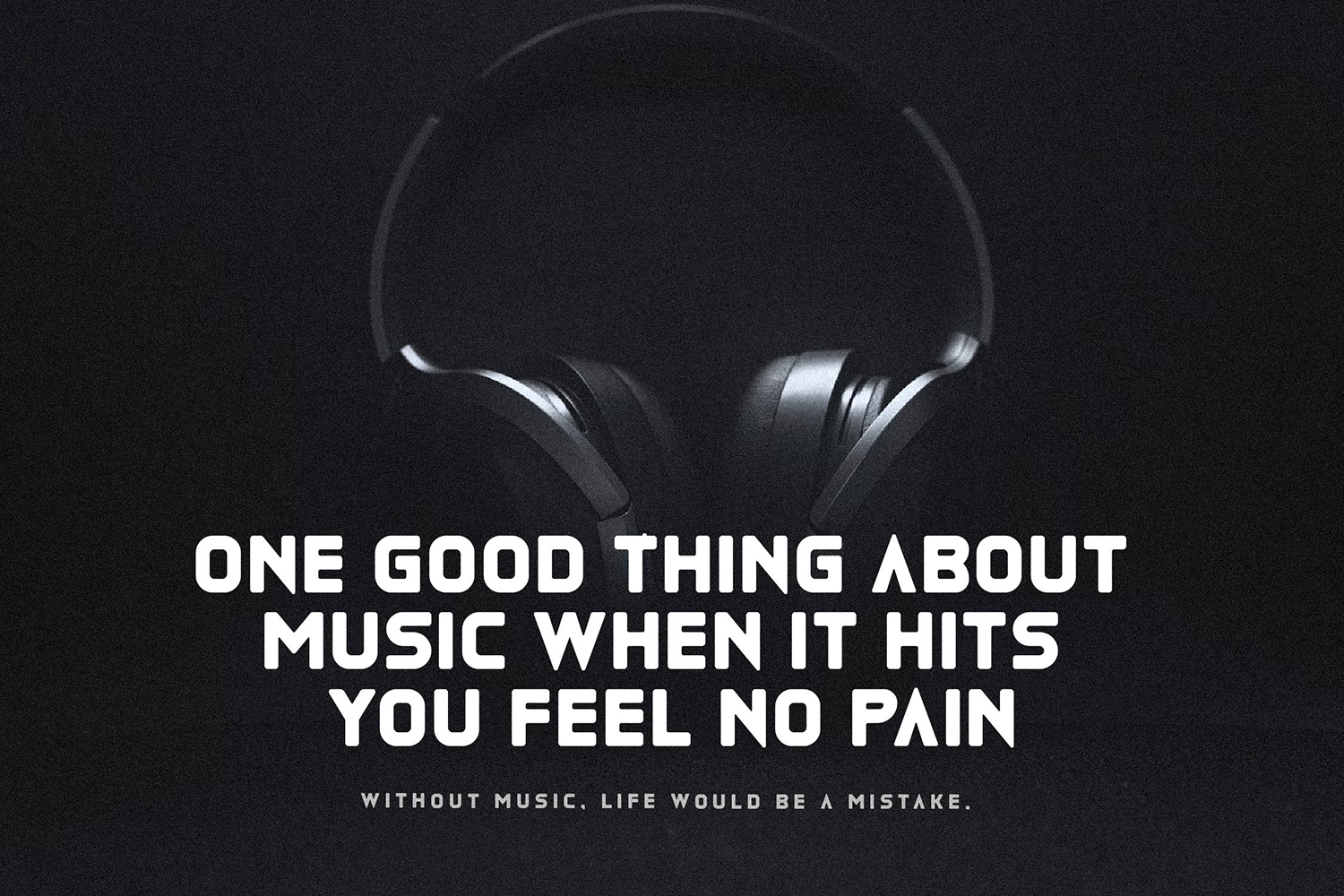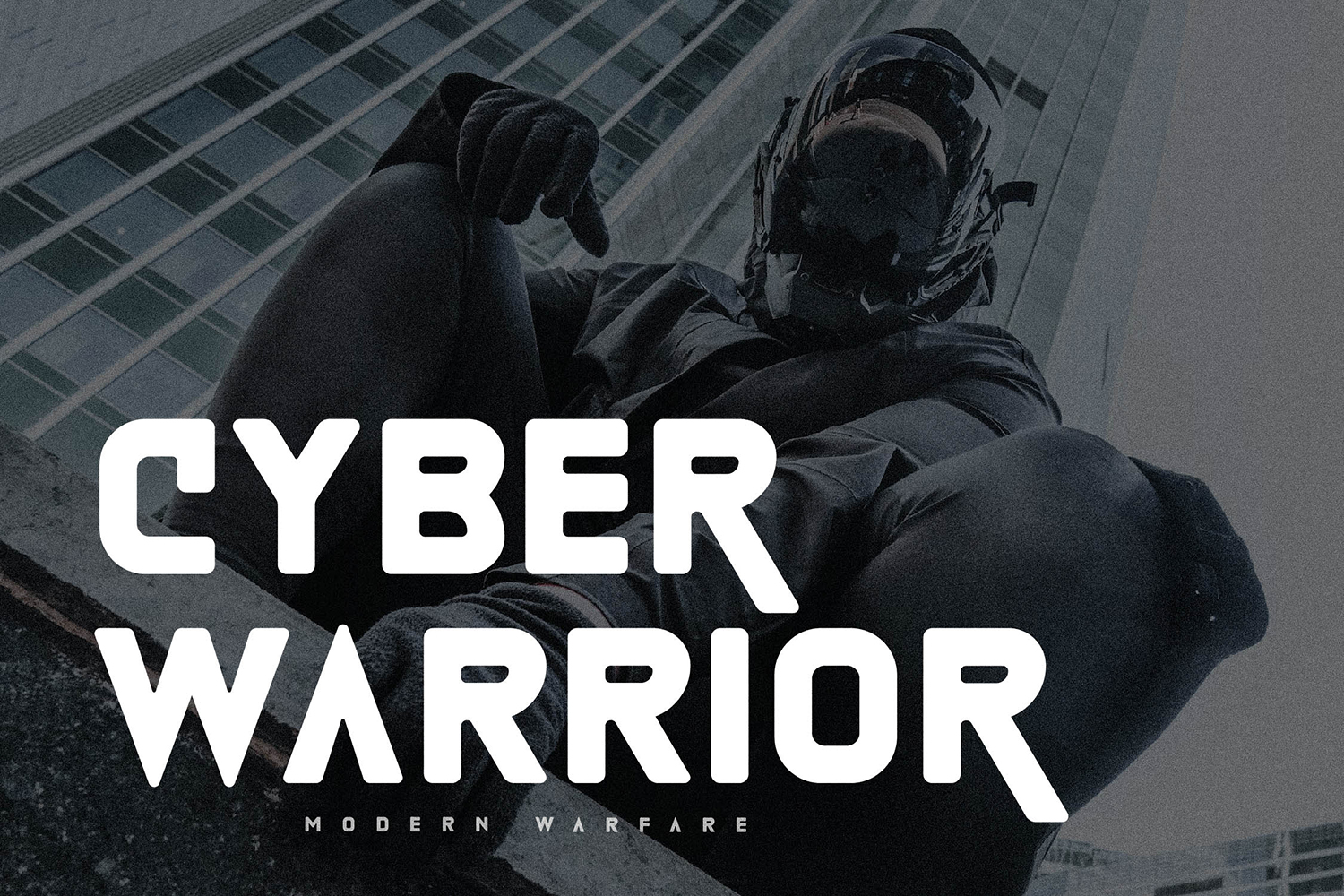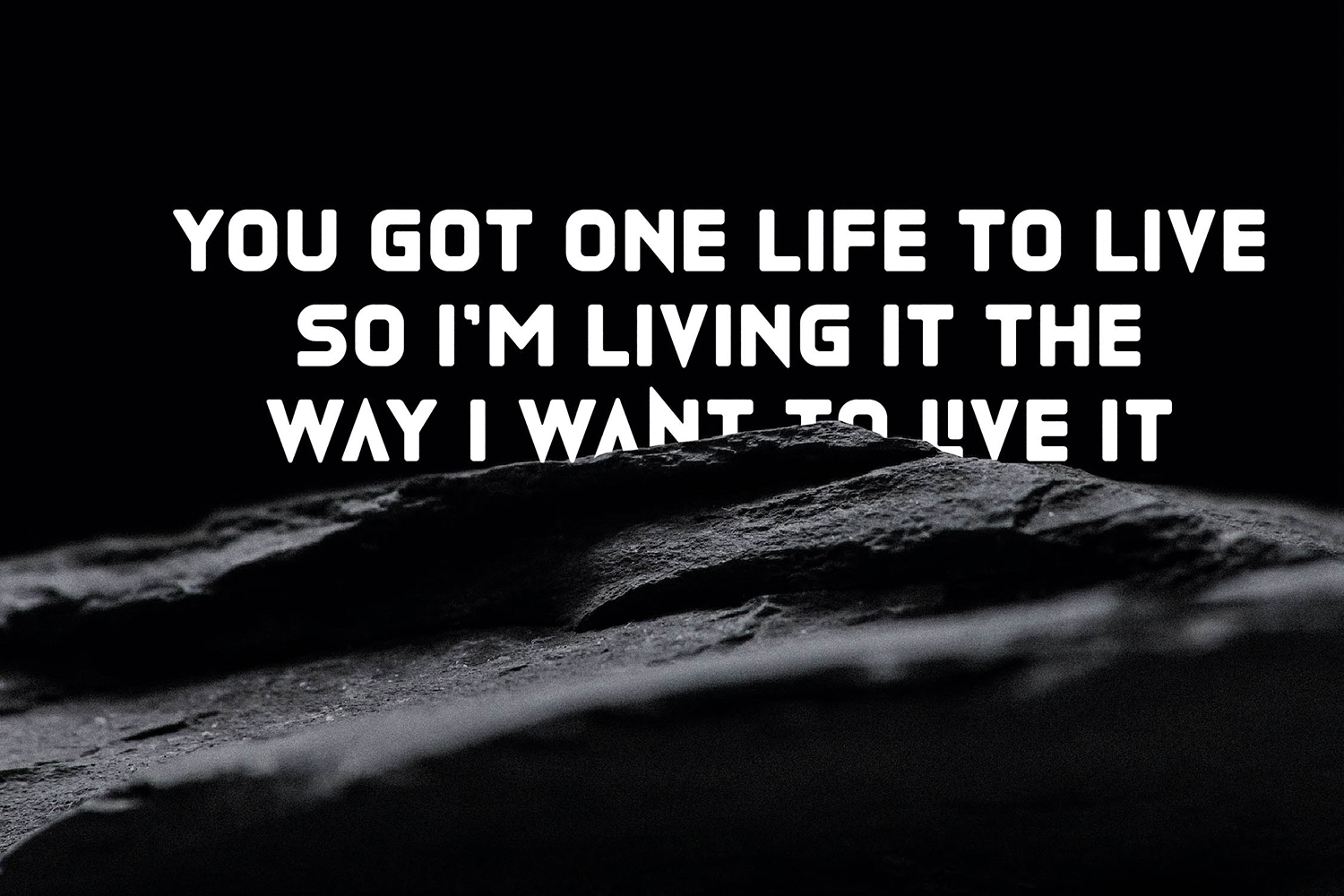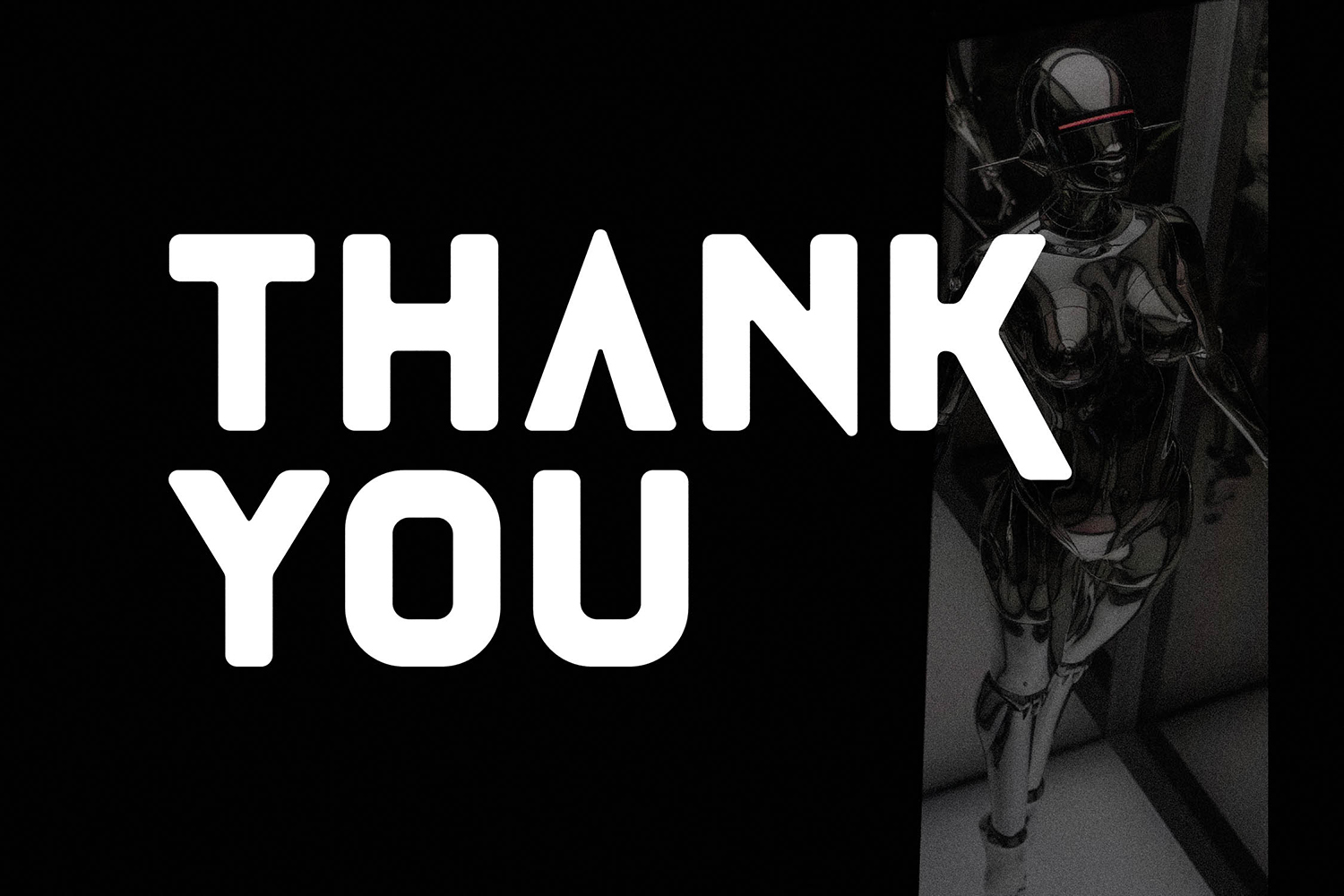
Brock Restar Free Font
Brock Restar Free Font is a contemporary and timeless display typeface that possesses a distinct style and fashionable appeal. This typeface is an excellent choice for creating elegant and luxurious logos, designing captivating book or movie titles, establishing a strong presence for fashion brands, enhancing the visual allure of magazines, clothing designs, lettering, quotes, and a myriad of other applications. With Brock Restar, you can effortlessly infuse your projects with an air of sophistication and elegance. Embrace the endless possibilities this exceptional typeface offers, enabling your creative endeavors to exude unparalleled style and visual impact. This free typeface was designed by a talented Storytype Studio. If you like it don’t forget to check out the full version.